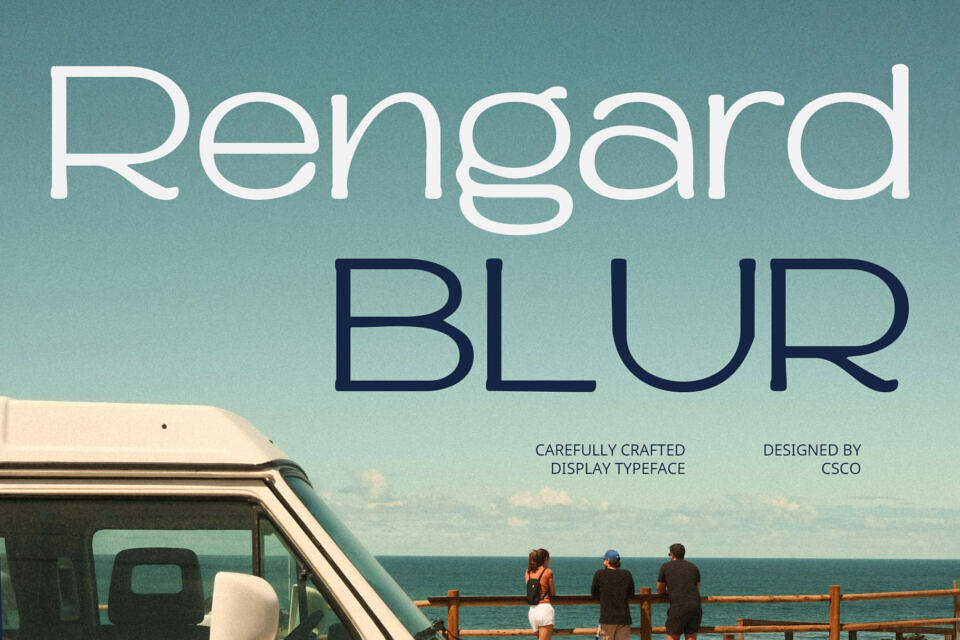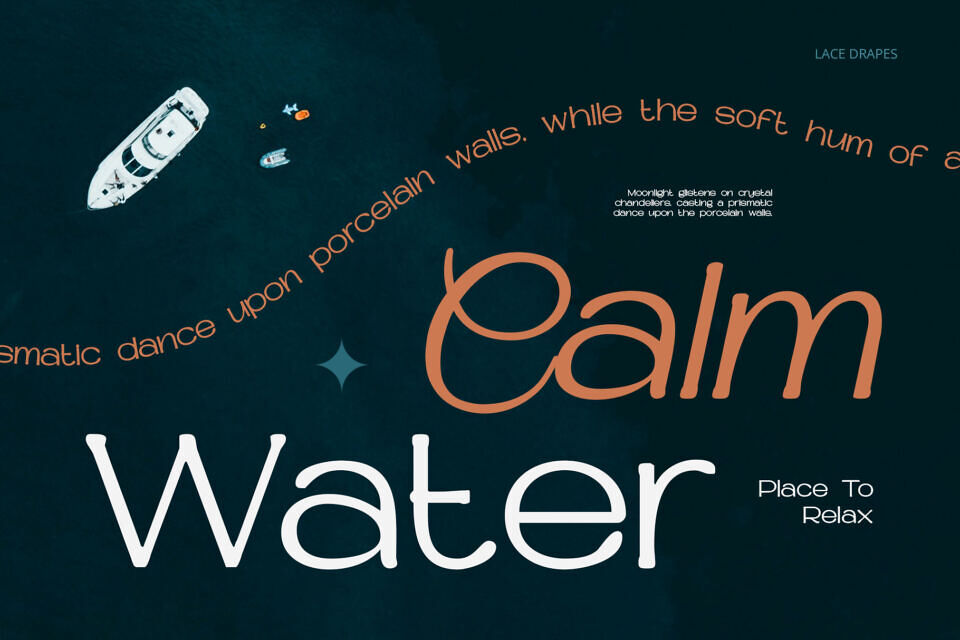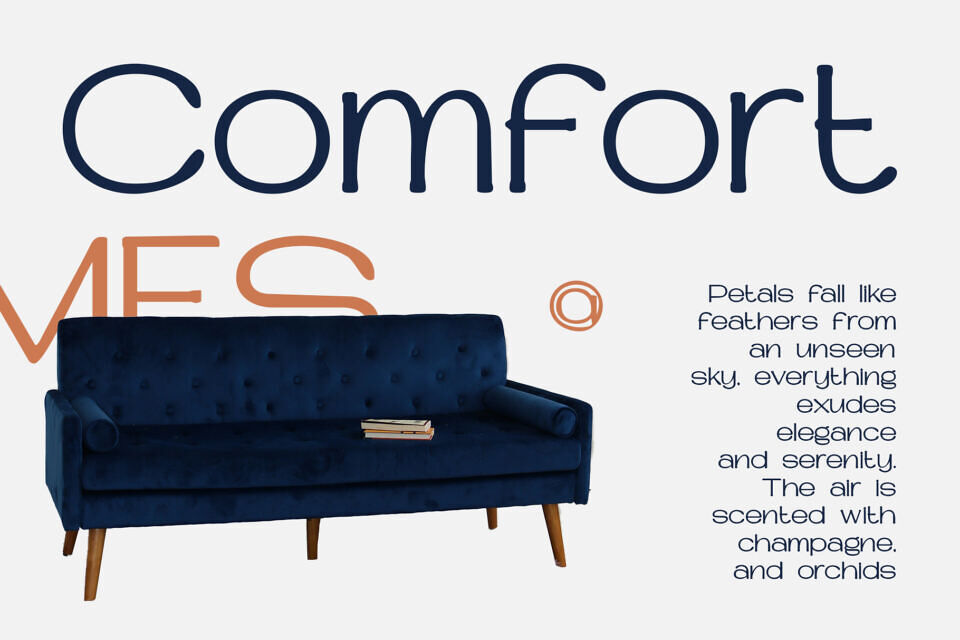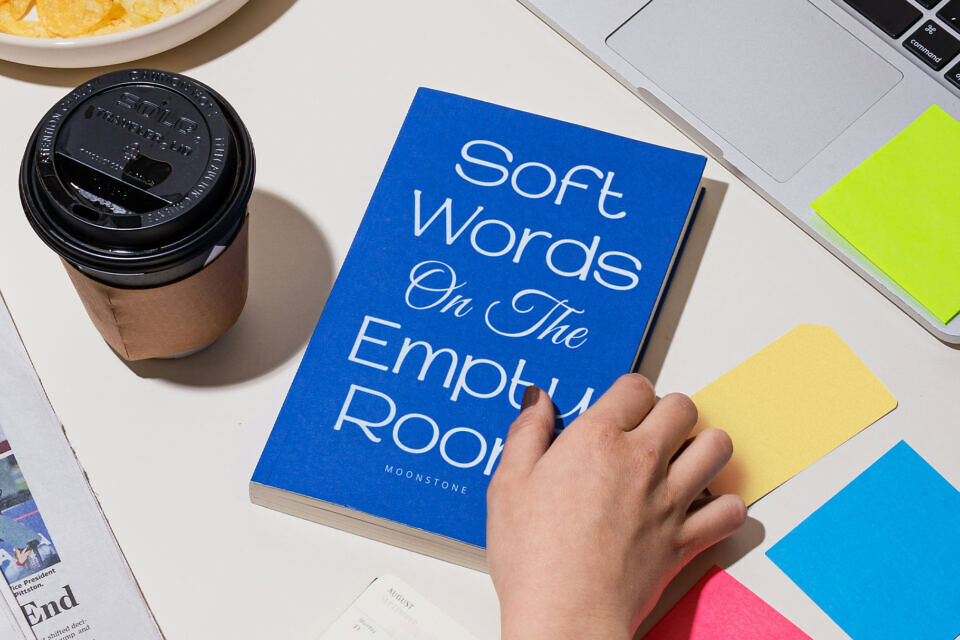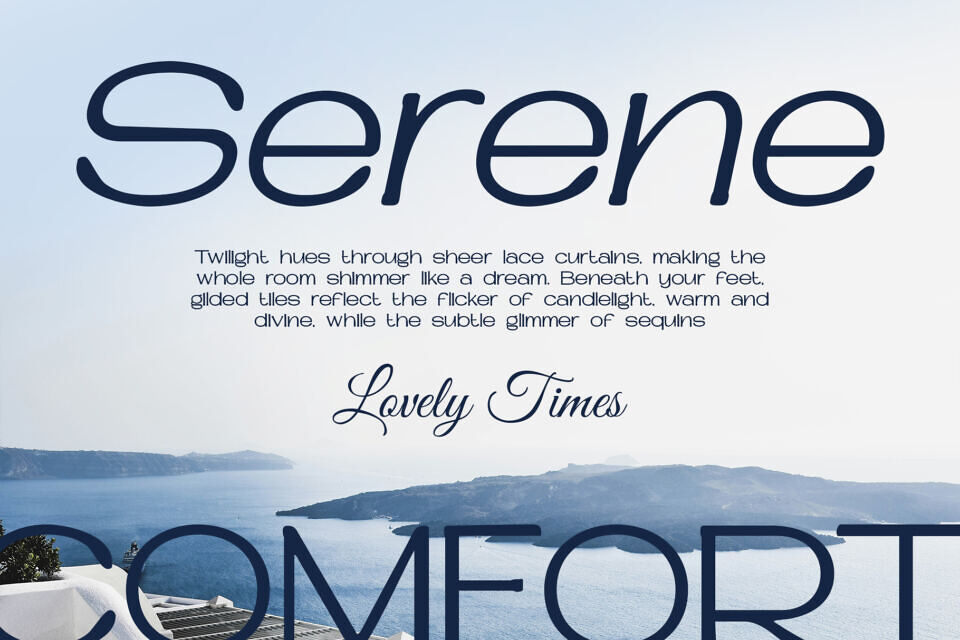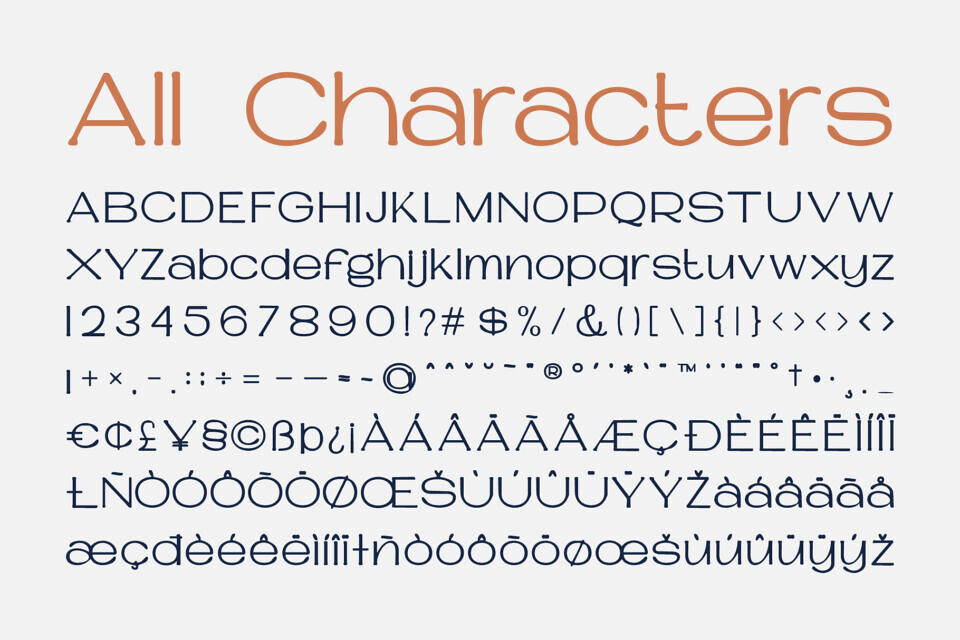
Rengard Blur Font
Rengard Blur is a modern serif font that embraces minimalist elegance while introducing a subtle yet striking blur effect to its letterforms. Designed with clean, sharp serifs and balanced proportions, it delivers a refined and contemporary visual appeal that feels both polished and innovative.
The blur effect adds a layer of depth and softness, transforming each character into an artistic expression. This distinctive visual texture creates a gentle distortion that feels ethereal and imaginative, making the font particularly compelling in designs that seek to evoke emotion and visual curiosity.
Rengard Blur shines in editorial layouts, high-end branding, fashion lookbooks, packaging, and album artwork, where a touch of experimental flair elevates the aesthetic.